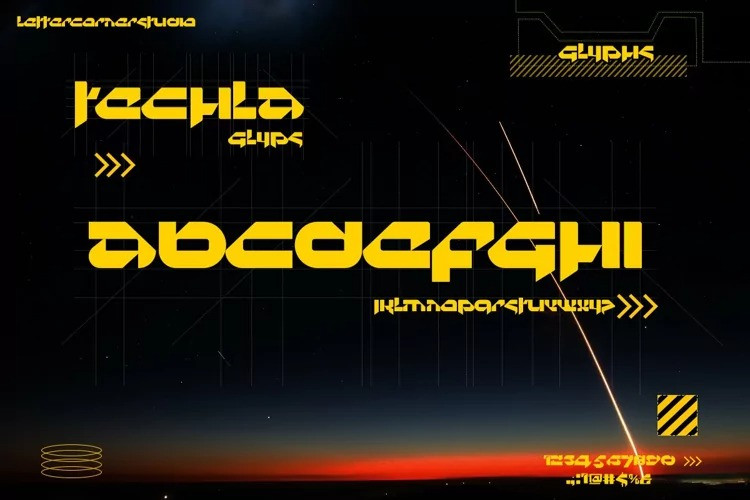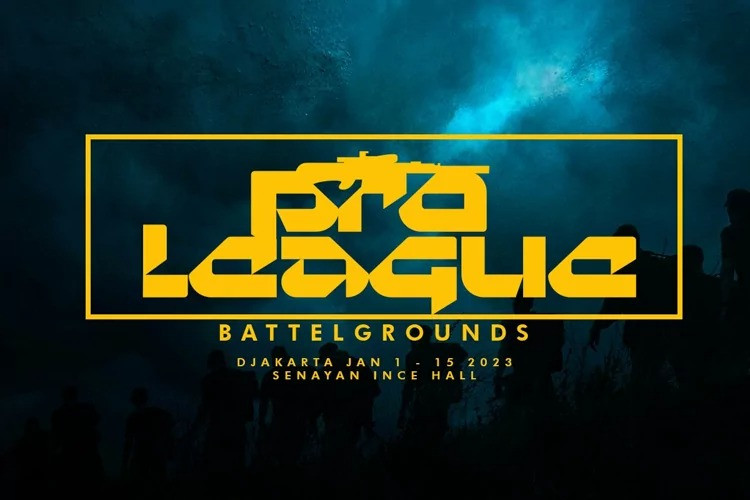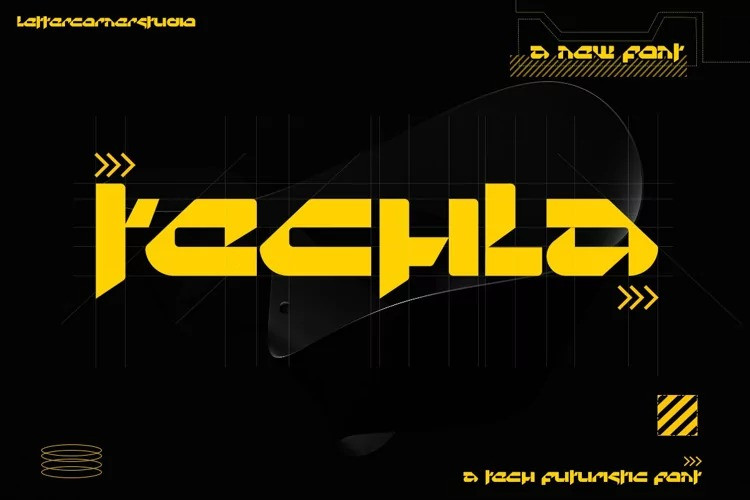
Techla Font
TECHLA Display Font a brand new display font. It’s quirky letterforms make this font perfect for branding, headlines, logotype, stickers, editorial design, and more.
uppercase & lowercase
numbers and punctuation